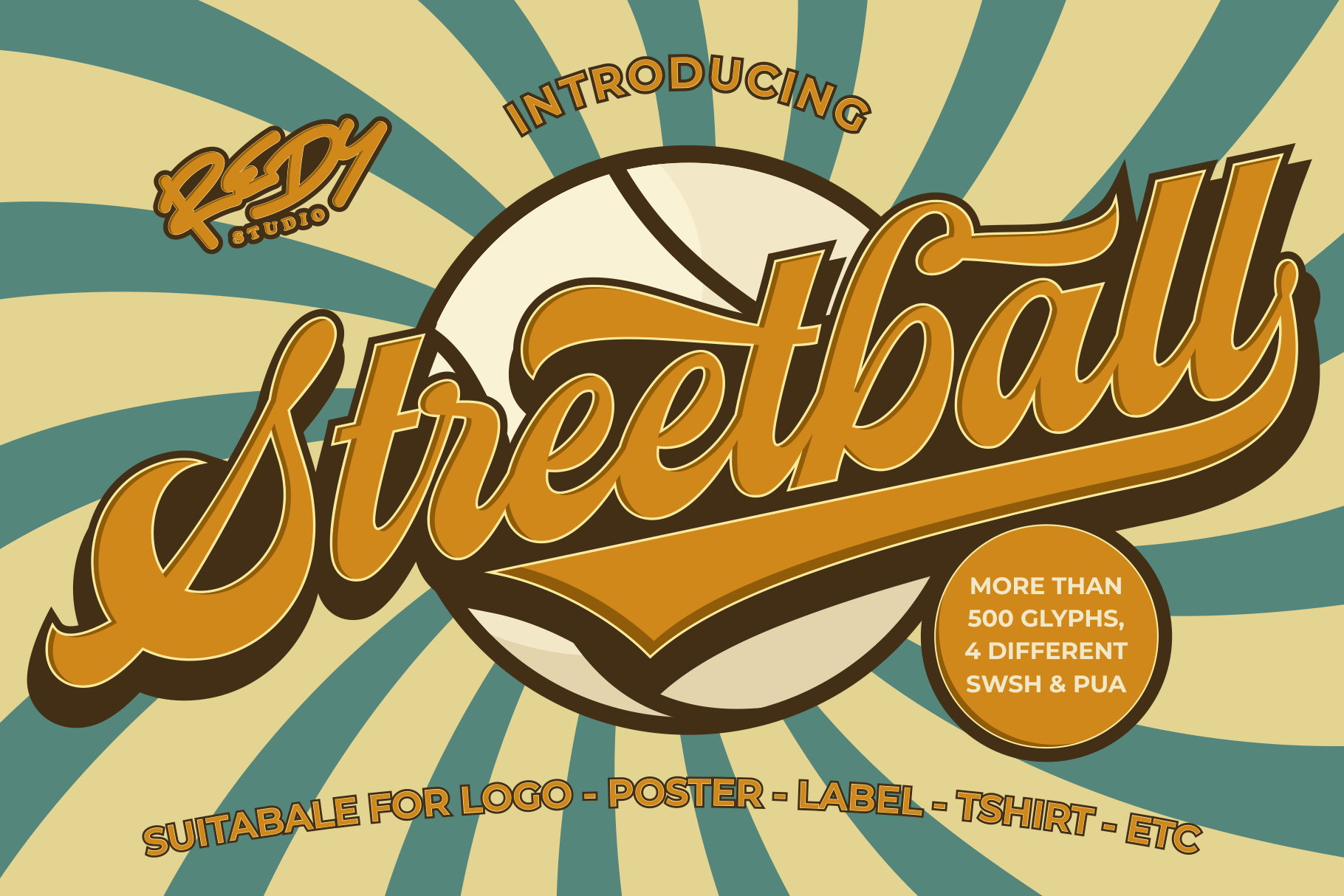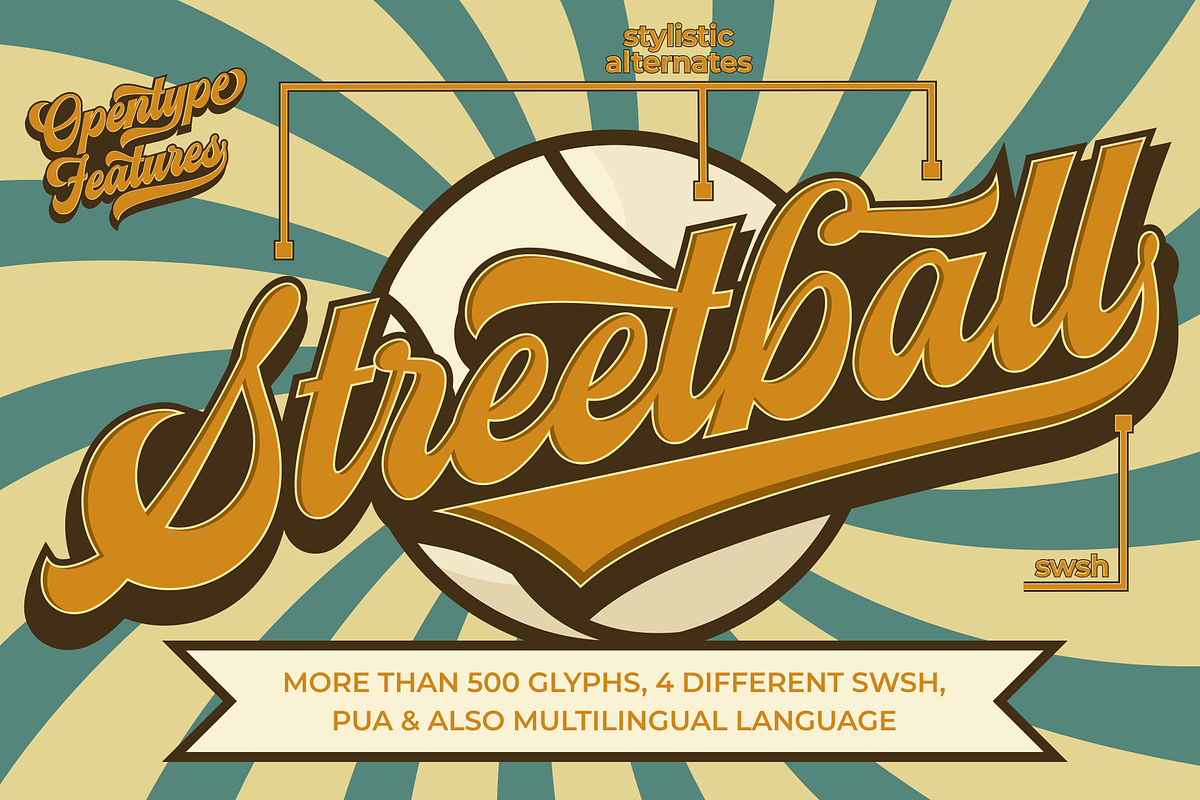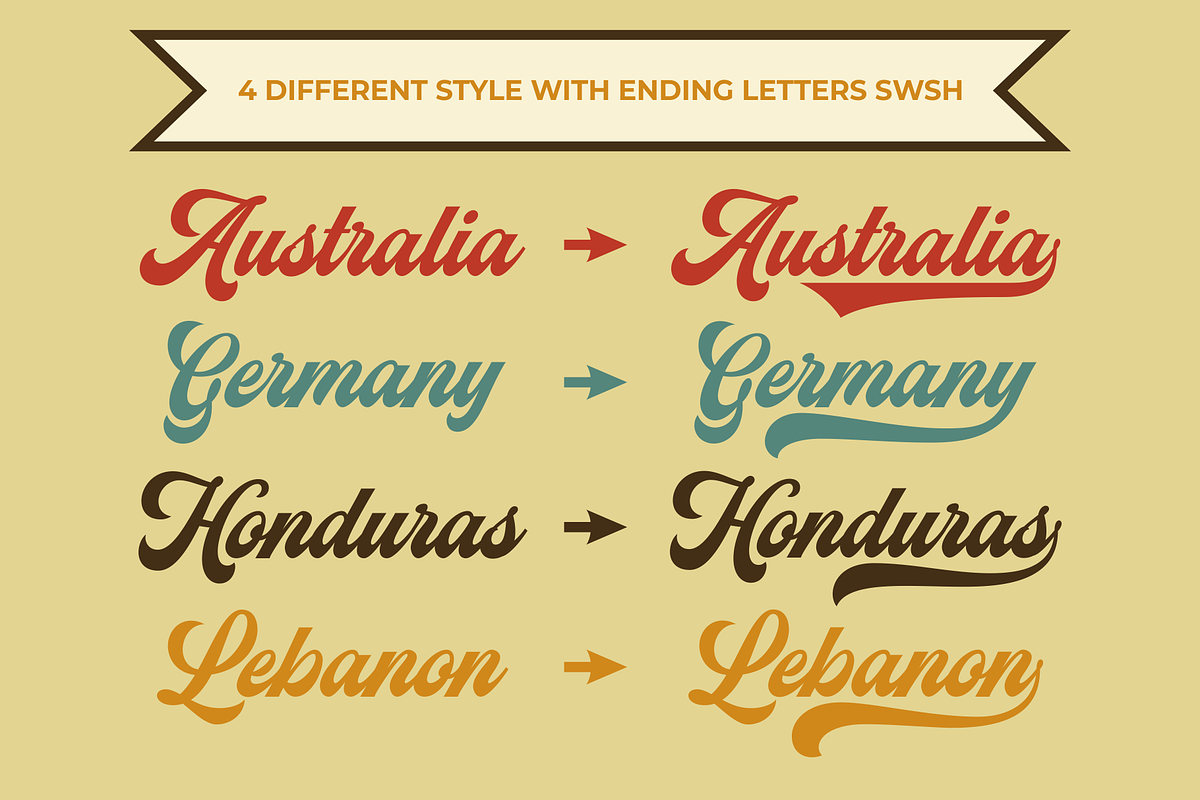
Streetball Vintage Font
Streetball Vintage Font. This font is a handwriting font style that was inspired by baseball sport. The font features many alternative characters that can be used to enhance your creative works. This font is good for display with a combination of vintage, hipster, retro, and stylish looks.
Streetball Vintage Font was designed with several precision layers to ensure an excellent display and it contains a total of 511 glyphs and 4 different lowercase ending swashes. Streetball Vintage Font is great for Logotype, Advertising, Namecard, Poster, Flyers, Card, and many more. Make Streetball a part of your creative projects and make it more fun!
Streetball features:
- A full set of upper & lowercase characters
- Hundreds of Alternates
- 4 different lowercase ending swashes
- Multilingual symbols